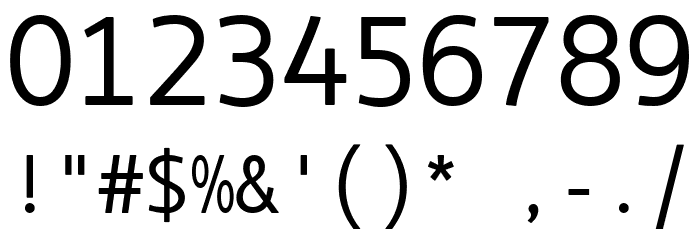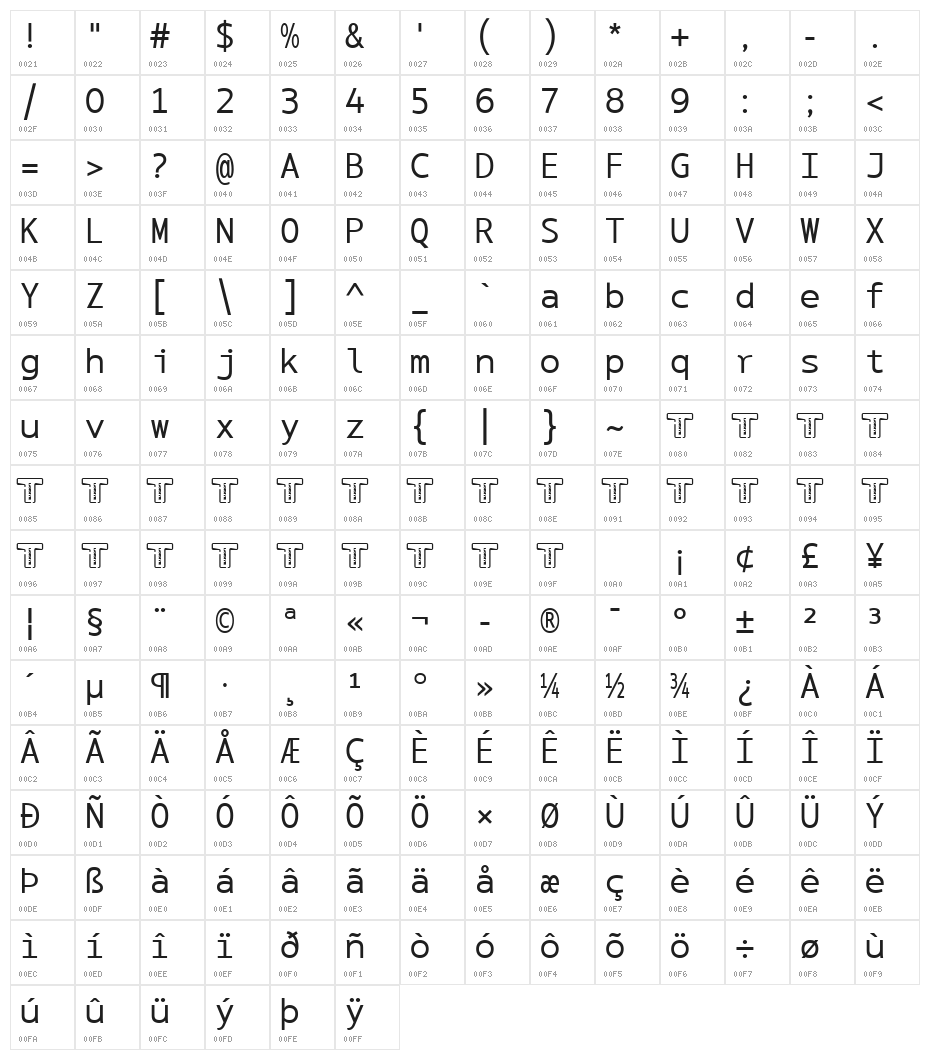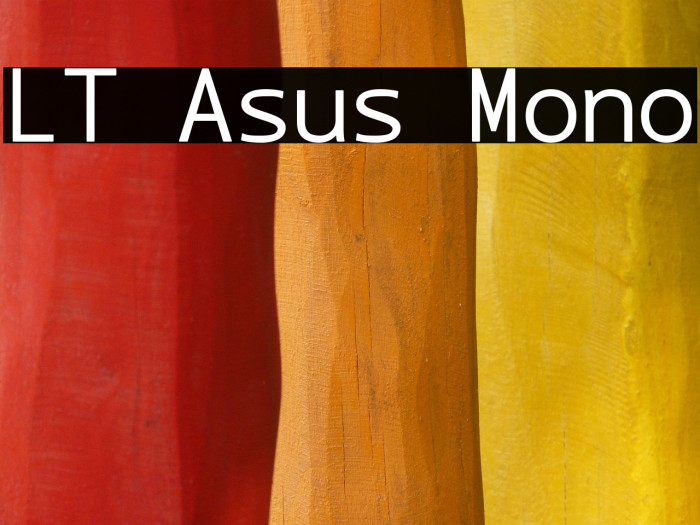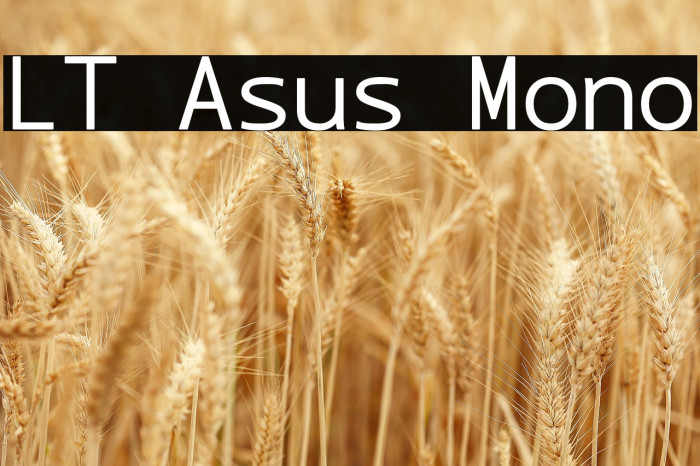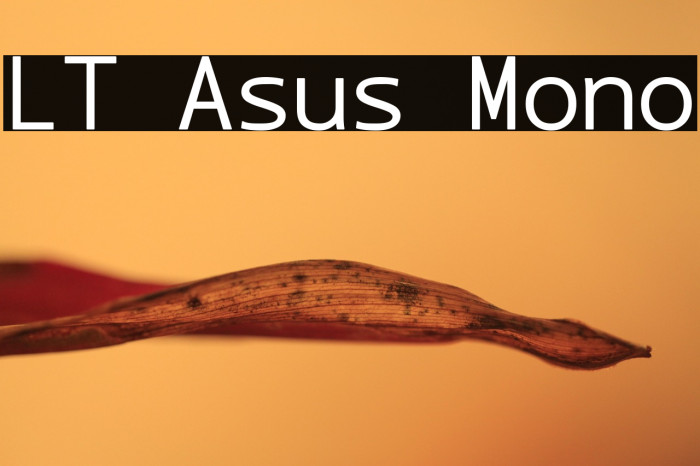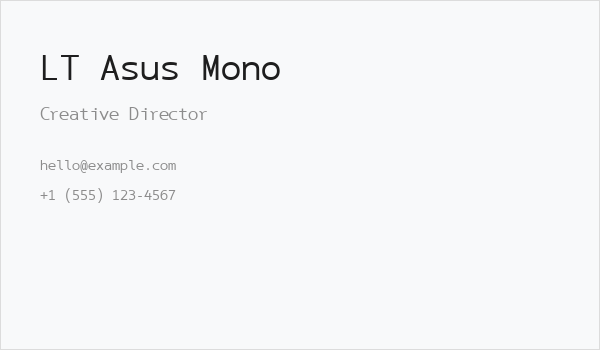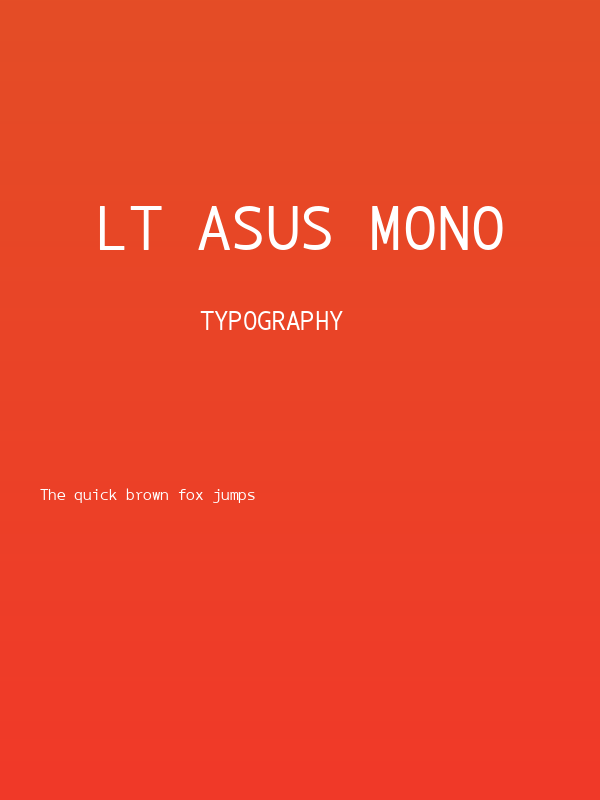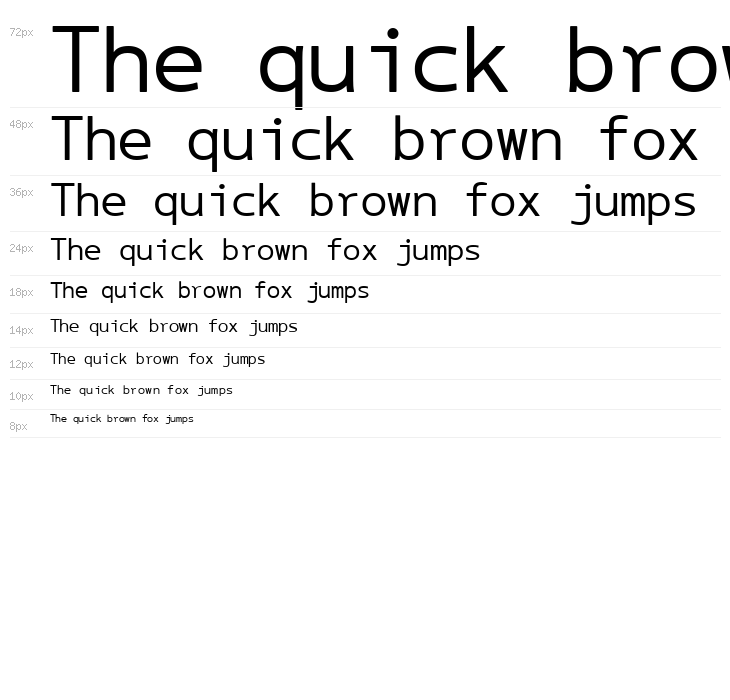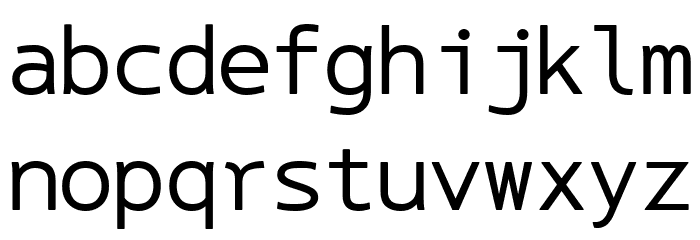
LT Asus Mono Font
LT Asus Mono Description
This font is a clean and modern monospaced typeface, characterized by its uniform character width and geometric shapes. The uppercase and lowercase letters are well-balanced, with a consistent stroke width that provides a harmonious appearance. The numerals are clear and legible, making them suitable for technical and coding applications. Special characters are distinct and easily recognizable, enhancing the font's versatility. The overall design is minimalistic, with a focus on functionality and readability, making it ideal for both digital and print media.
| Use Case | Coding, Technical documentation, Minimalist design |
| Proposed Projects | Ideal for coding, technical documentation, and minimalist design projects. |